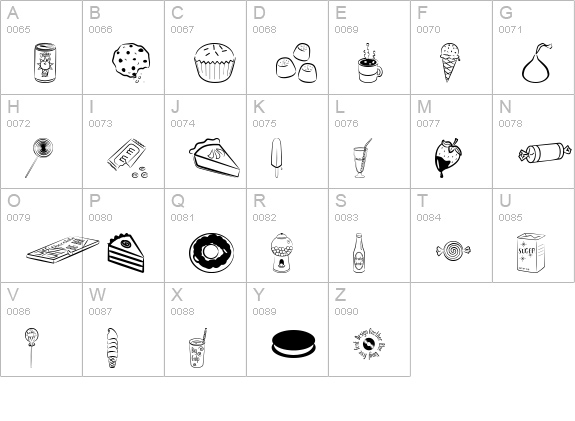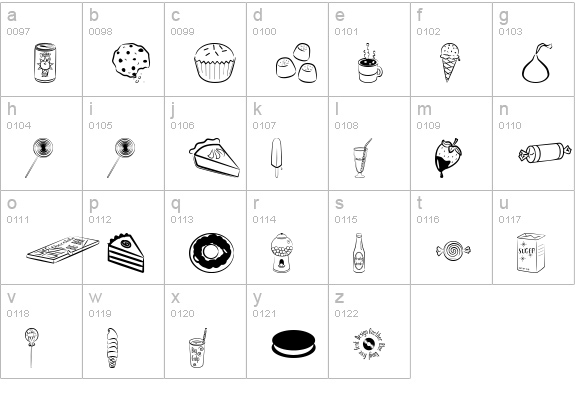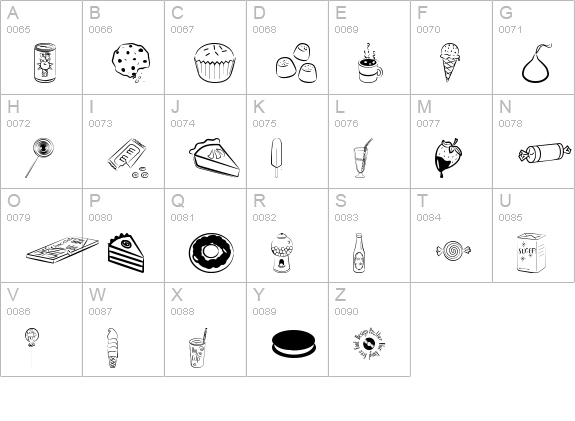
Introducing Sugar Coma font, a whimsical and playful typeface that is sure to satisfy your sweet tooth for design projects. This delightful font features charming curves and a touch of retro flair, making it perfect for adding a fun and lighthearted touch to your creations. Whether you're working on a birthday invitation, a party flyer, or a candy-themed branding project, Sugar Coma font is here to add a sugary sweet vibe to your designs. And the best part? Sugar Coma font is completely free to download at FontsMarket.com. So go ahead and indulge in this delightful typeface to bring a touch of sweetness to your next project.